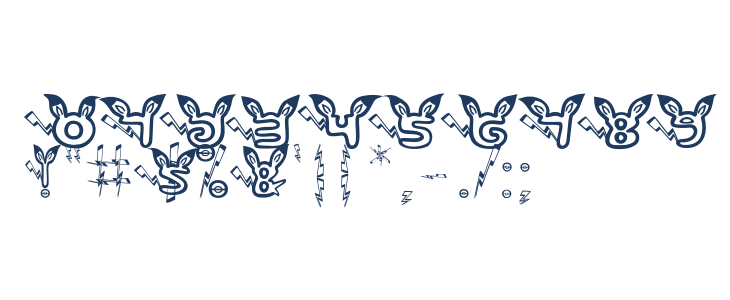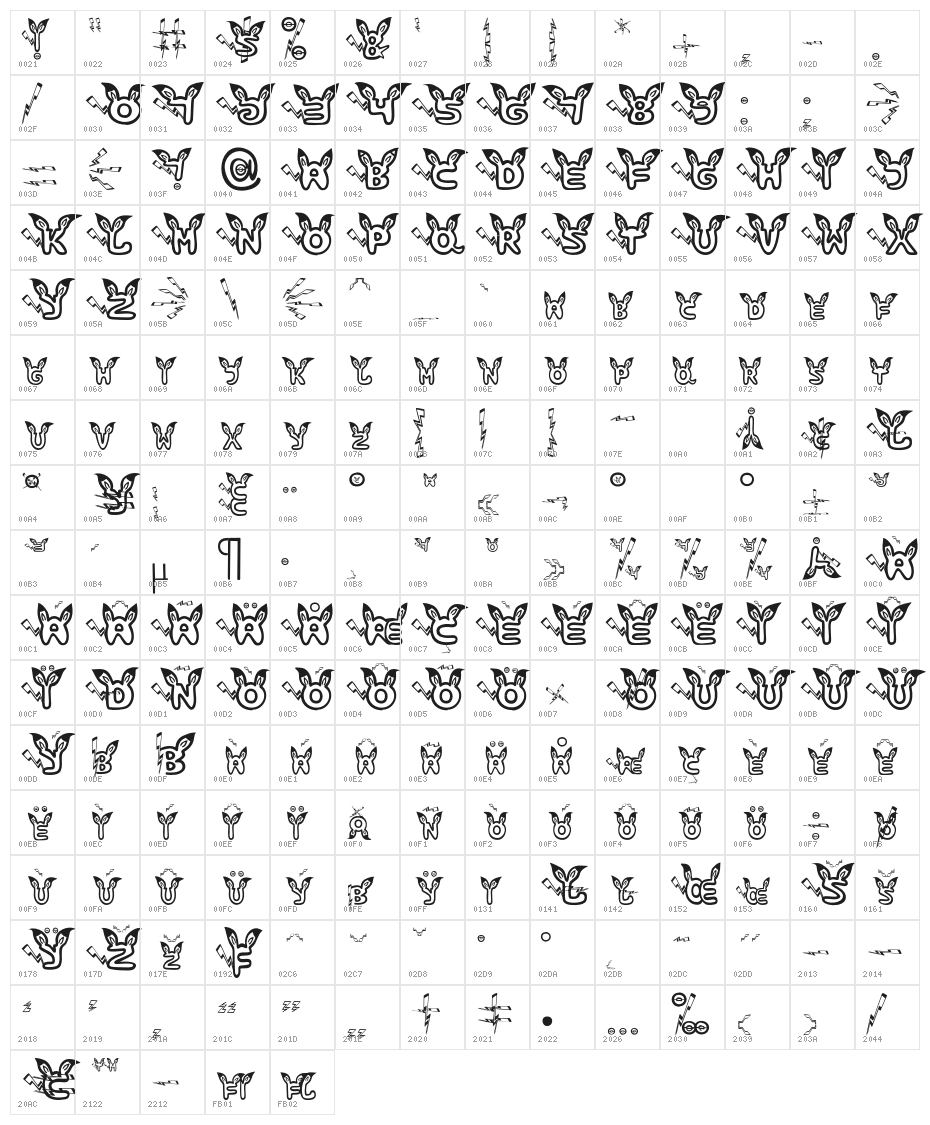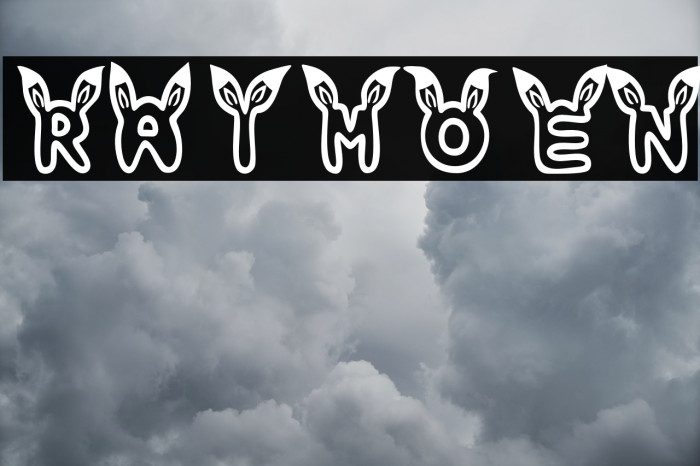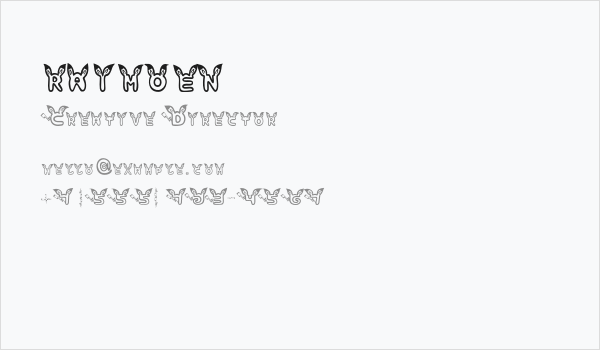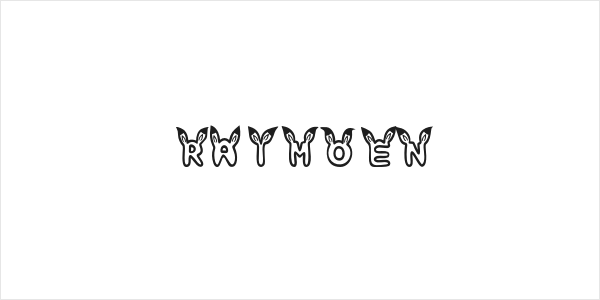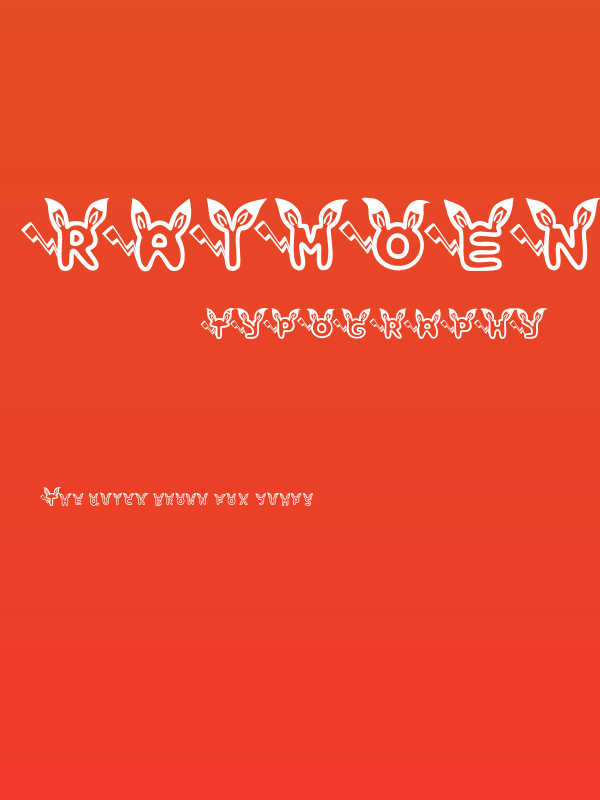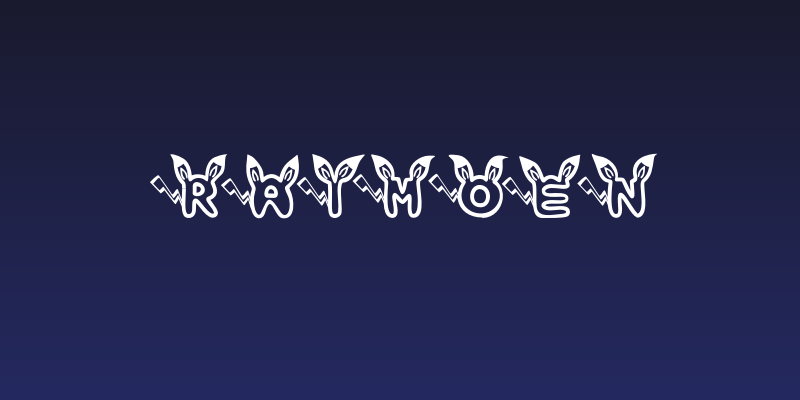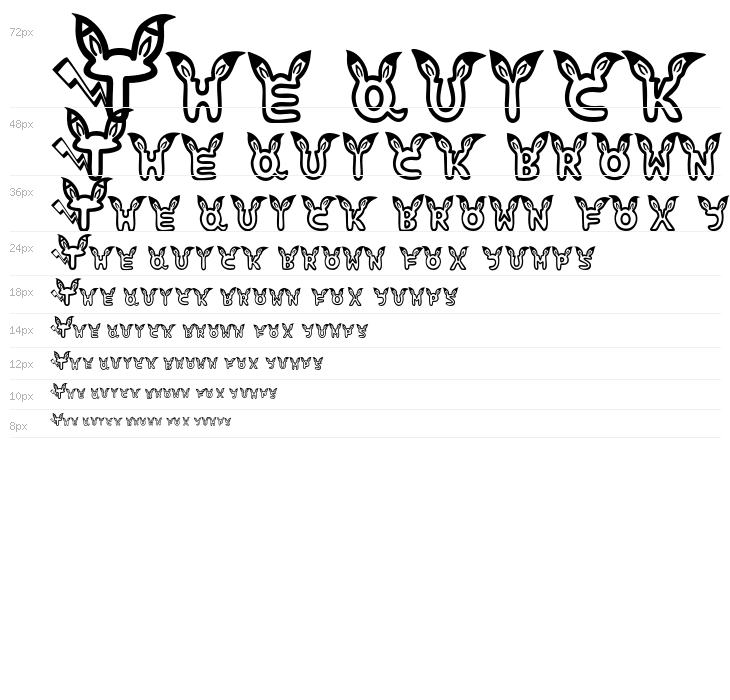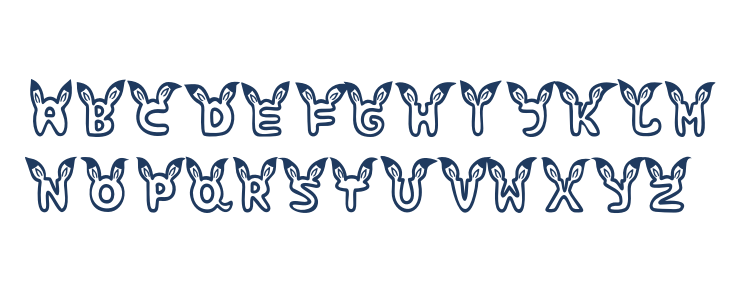
raimoen Font
raimoen Description
This playful and whimsical font features characters adorned with distinctive ears and lightning bolt motifs, reminiscent of a popular electric-themed character. The bold outlines and unique embellishments make each letter stand out, creating a lively and energetic appearance. The font includes both uppercase and lowercase letters, as well as numbers and a selection of special characters, all maintaining the same thematic design. Its decorative style is perfect for projects that require a fun and engaging visual element.
| Proposed Projects | Ideal for children's book covers, themed party invitations, playful branding, and merchandise related to animated characters. |